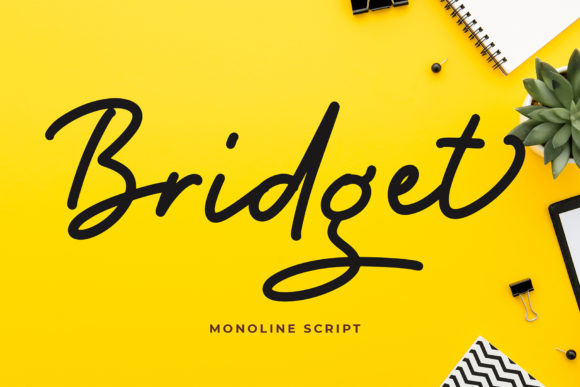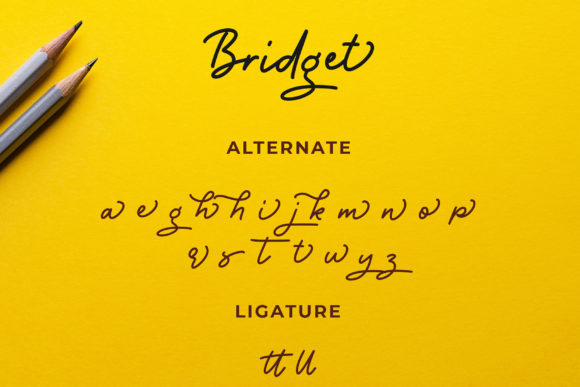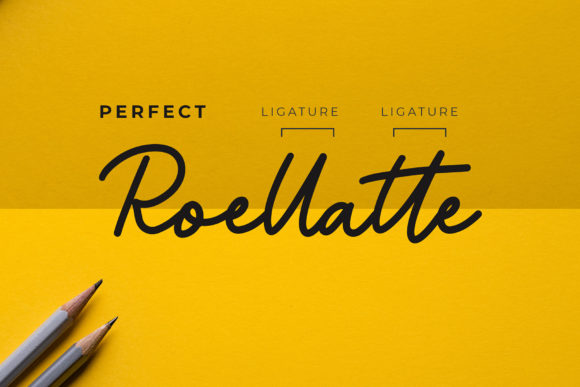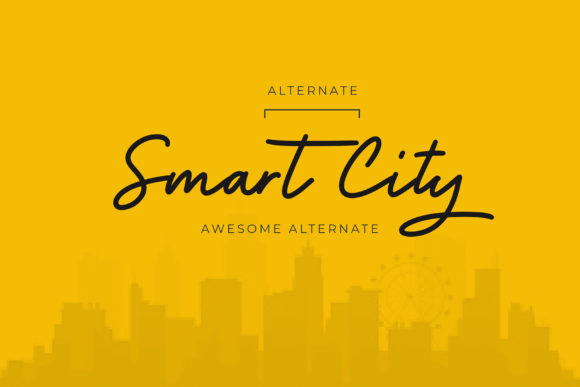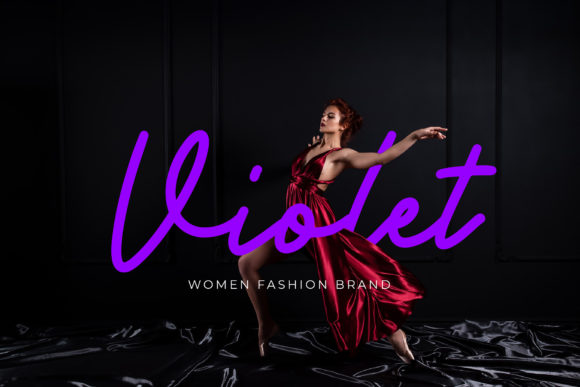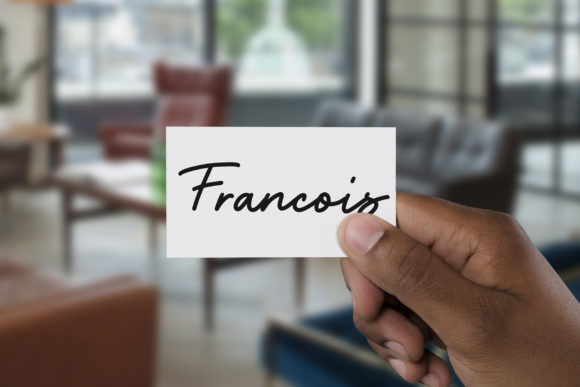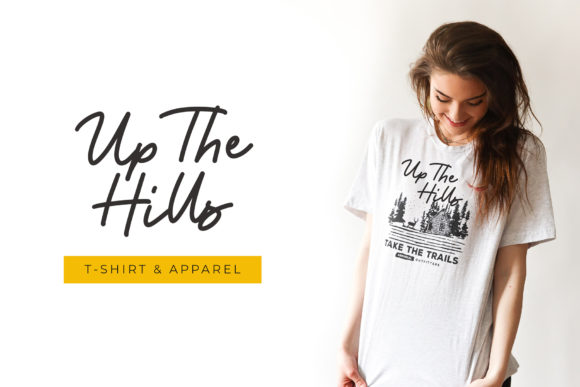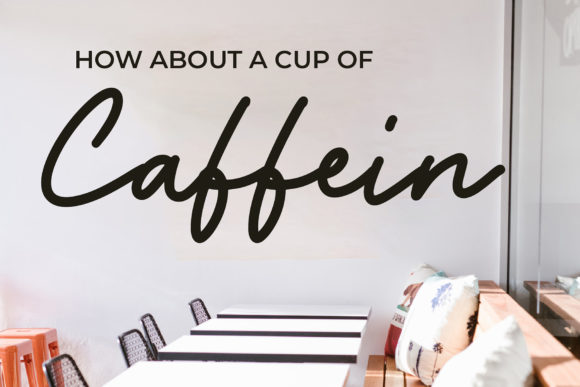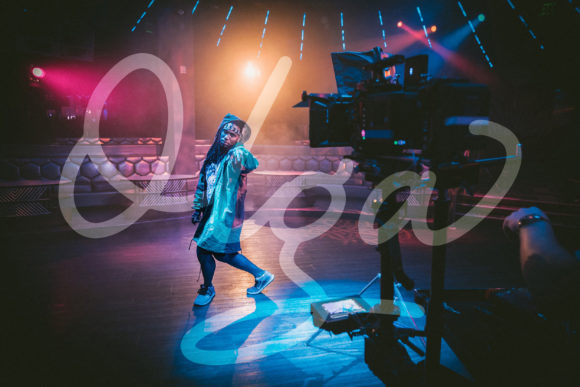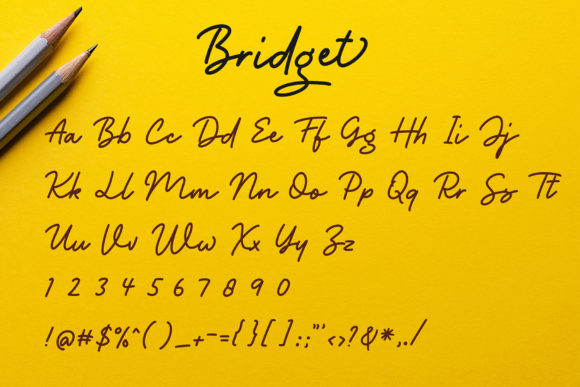
Bridget Font
About Bridget Font
Bridget is an exciting calligraphy font with a relaxed style. It looks perfect on branding projects, logo, wedding designs, social media posts, advertisements, product packaging, labels, photography, watermark, invitations, and much more.